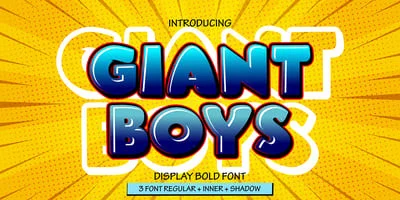
Giant Boys Font
This bold display font is perfect for superhero branding, action movie titles, comic book covers, children's toy packaging, adventure game logos, sports team merchandise, powerful campaign designs, and heroic design projects that demand larger-than-life presence.
Giant Boys Font is exciting because it embodies superhuman strength and heroic courage with its massive letterforms that tower over ordinary typography like mighty champions. The font delivers colossal impact that transforms any message into an epic adventure.
The Giant Boys Font family includes regular and shadow versions with heroic decorative elements, power symbols, and adventure ornaments, giving designers legendary tools for creating champion-worthy typography that conquers all challenges.
Ready to unleash superhero power? Giant Boys Font provides designers with mighty letterforms that dominate with heroic strength and adventurous spirit. This powerful typeface combines comic book heritage with modern functionality, making it ideal for entertainment brands, toy companies, and action-packed campaigns. Whether you're designing superhero merchandise, adventure game interfaces, or dynamic sports branding, this font delivers champion-level impact. The heroically constructed characters feature commanding presence while maintaining excellent readability across all heroic missions. Perfect for businesses in entertainment, gaming, sports, and children's products that celebrate courage and adventure. The font's giant construction creates memorable brand recognition that resonates with heroes of all ages worldwide. Each letter showcases deliberate power that mirrors the unstoppable force of legendary champions. Download today and supercharge your creative projects with this premium display font that transforms ordinary text into extraordinary expressions of heroic might and the incredible adventures of Giant Boys Font legends.